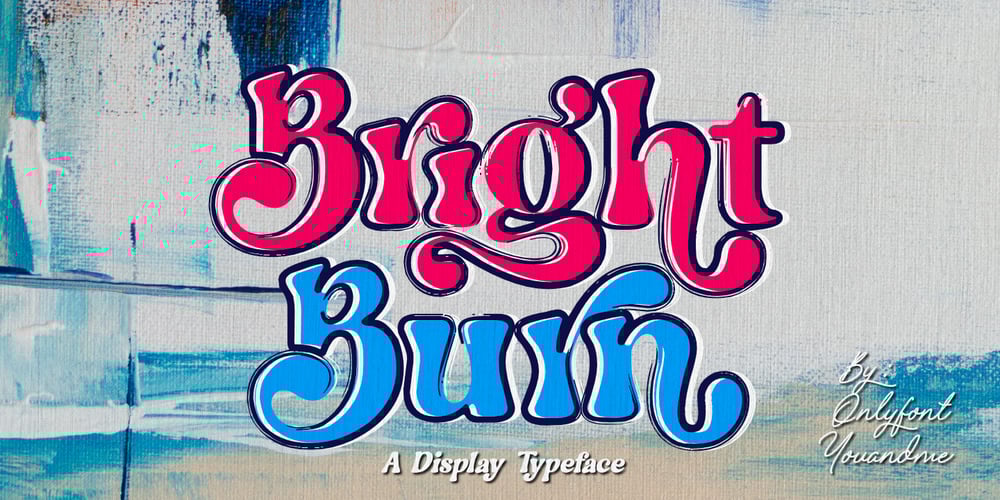
Bright Burn Font Family was designed by Aghny Akromuddin El Haq and published by onlyfontyouandme. Bright Burn contains 2 styles and family package options. Bright Burn is cool, retro and fun display font. Bright Burn have 2 fonts,regular and brush. This font is PUA encoded which means you can access all of the glyphs and alternates with ease! It will look great on headlines, magazines, logos, branding and so much more!